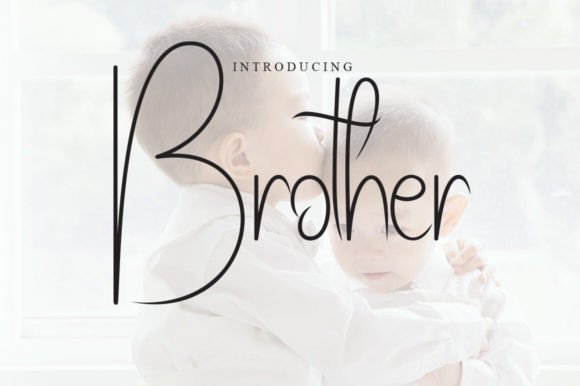
The Sweet Charm of Brother Font: A Designer’s Delight
I’ll never forget the time I was working on a wedding invitation project, and my client asked for a font that was “sweet, romantic, and playful.” I scoured the internet, tried out dozens of fonts, but nothing seemed quite right. That was until I stumbled upon Brother Font. This beautiful, cursive handwritten font instantly captured the essence of what my client was looking for. In this article, I’ll share my experience with Brother Font, its features, and how to make the most of it in your designs.
A Personal Review of Brother Font
So, what makes Brother Font so special? Here are a few things I love about it:
- ✨ Sweet and Cursive: Brother Font has a gentle, cursive feel that’s perfect for projects that require a touch of elegance and playfulness.
- ✅ Highly Versatile: This font can be used on a wide range of design projects, from wedding invitations and party decor to branding and packaging.
- 💕 Romantic and Whimsical: Brother Font has a way of adding a romantic and whimsical touch to your designs, making them truly special.
While Brother Font is an excellent choice, it’s not without its quirks. Here are a few things to keep in mind:
- 🤔 Limited Contrast: Brother Font has a relatively consistent line width, which can make it less suitable for designs that require a lot of contrast.
- ⚠️ Not Ideal for Body Text: While Brother Font is beautiful, it’s not the best choice for body text due to its cursive nature and limited legibility at small sizes.
The Story Behind Brother Font
Brother Font was designed with love and care by a talented type designer who wanted to create a font that would bring joy and romance to designs. Inspired by classic handwritten scripts, Brother Font combines elegance and playfulness in a unique way. Whether you’re a designer, crafter, or creative hobbyist, Brother Font is sure to become a favorite in your collection.
| Font Name | Brother Font |
| Author | betastudio13 |
| What is Brother Font best used for? | Brother Font is perfect for projects that require a sweet, romantic, and playful touch, such as wedding invitations, party decor, and branding. |
| Is Brother Font suitable for body text? | No, Brother Font is not ideal for body text due to its cursive nature and limited legibility at small sizes. |
| Is Brother Font available in different languages? | Brother Font may not support all languages, but it does include a range of glyphs and OpenType features to help with language support. |